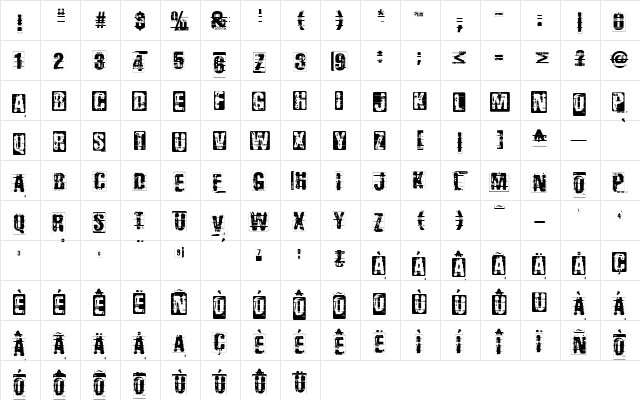
Phlax Medium Font Preview
Phlax Medium
Phlax Medium Font Details
Design Context for Phlax Typeface
Phlax is a composed and adaptable typeface that performs quietly and consistently across a wide range of design contexts.
Pro Tip: Pair Phlax with a font of contrasting weight or personality to build a more expressive typographic hierarchy.